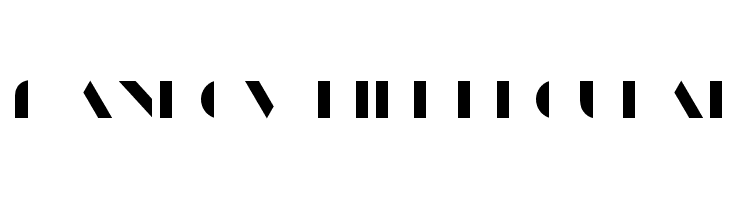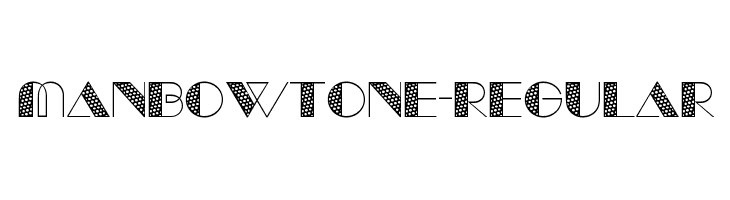
A bold, geometric font with sharp angles and a modern, dynamic style.
A modern, geometric font with sleek lines and sharp angles.
A bold, modern font with strong geometric shapes and consistent stroke width.
A bold, geometric font with sharp angles and solid shapes.
A bold, dotted font with a modern and playful geometric design.
A modern, linear-patterned decorative font with geometric shapes.
A playful, dotted geometric font with a bold and modern style.
A bold, geometric font with a modern and artistic style.
A playful, dotted font with geometric shapes and bold lines, perfect for decorative use.
A modern, striped font with geometric shapes and parallel lines.